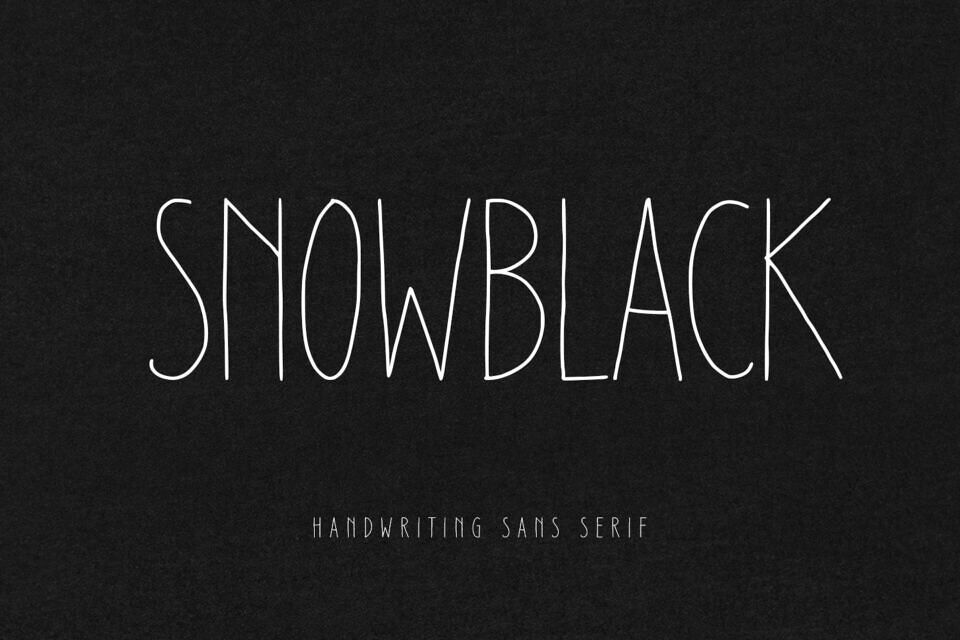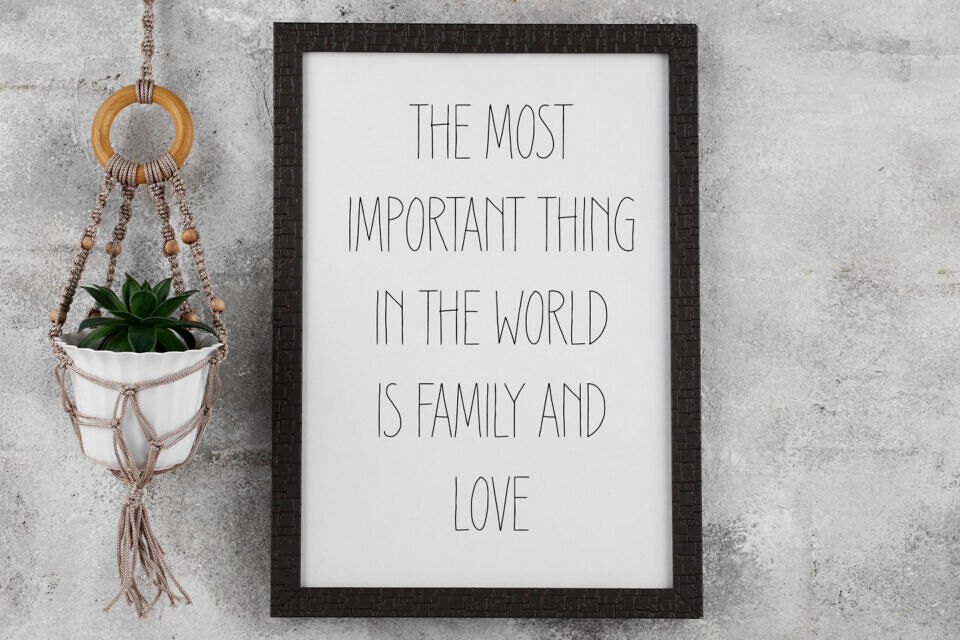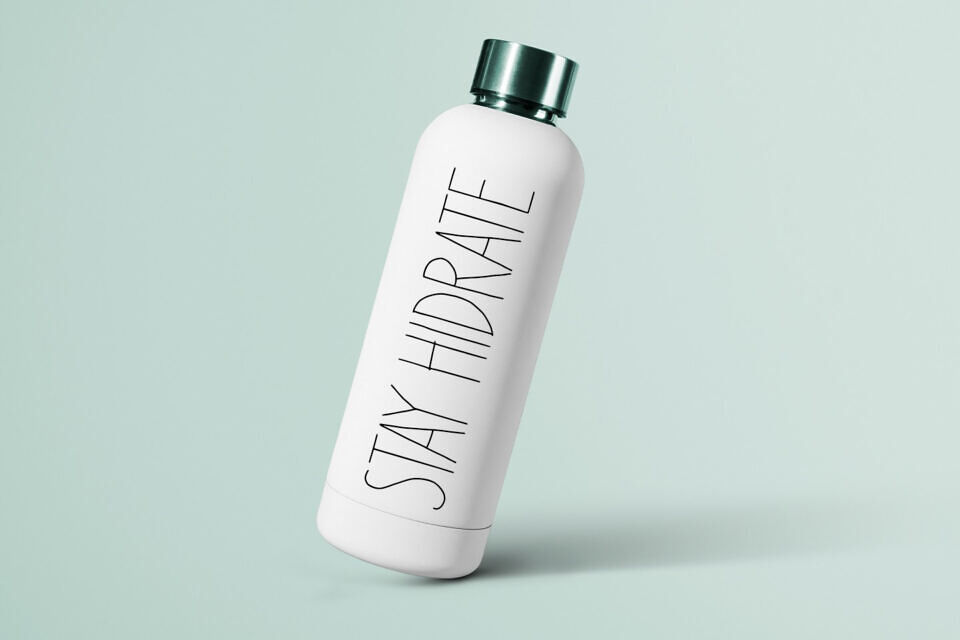
Snowblack is a stylish, thin-lettered sans serif font. Whatever the topic, this font will be a wonderful asset to your font library, as it has the potential to enhance any creation.